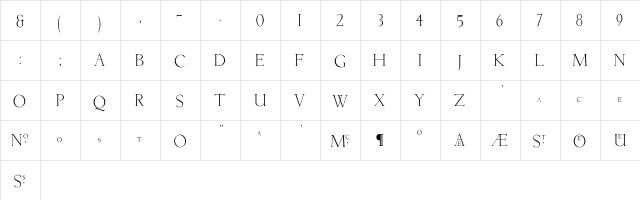
Newtunian Regular
Design Context for Newtunian Typeface
Newtunian takes a measured approach to typography — its balanced proportions and neutral character make it a reliable workhorse for both digital and print work.